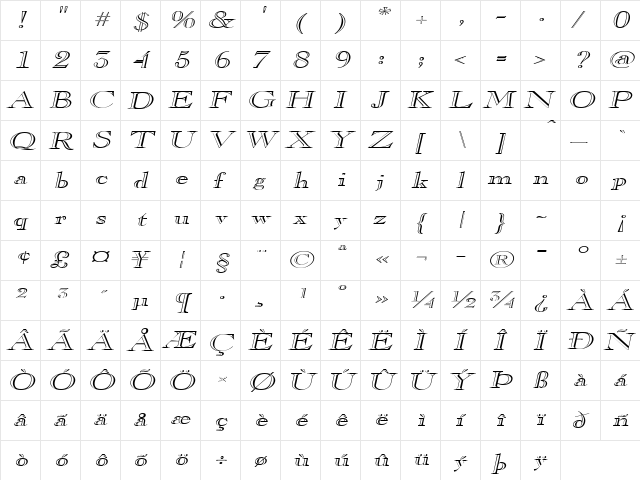
GravureExtended Italic Font Preview
GravureExtended Italic
GravureExtended Italic Font Details
Design Context for GravureExtended Typeface
GravureExtended is a composed and adaptable typeface that performs quietly and consistently across a wide range of design contexts. The dynamic lean of this cut emphasises speed and emphasis in any layout.
Pro Tip: Use GravureExtended for emphasis, pull quotes, and subheadings where its slanted energy can add rhythm to the layout.